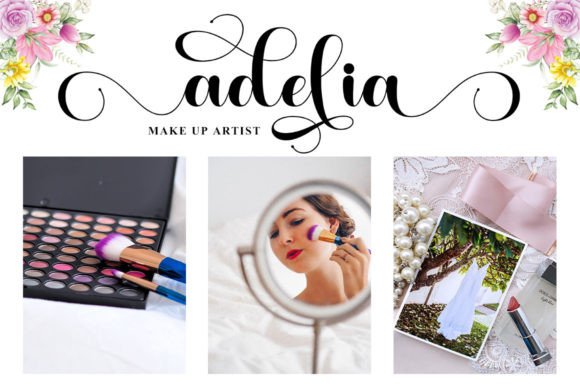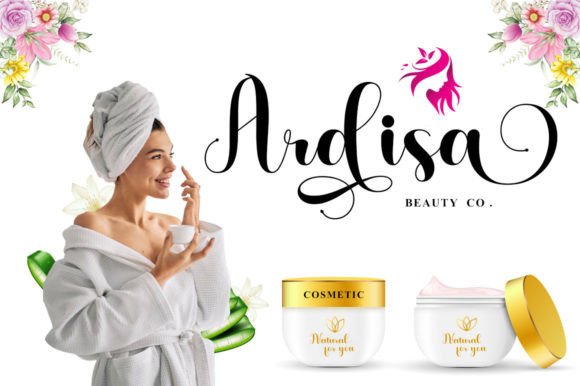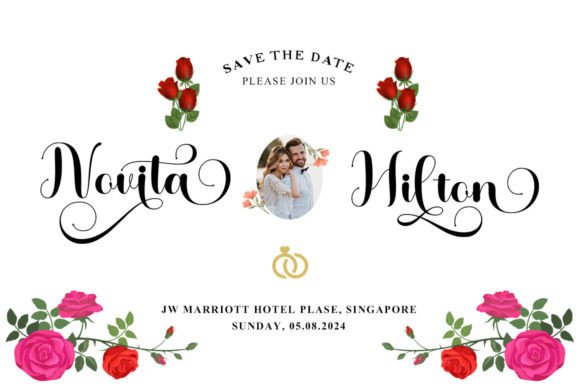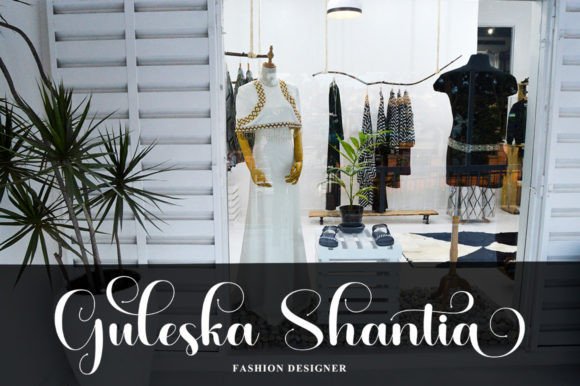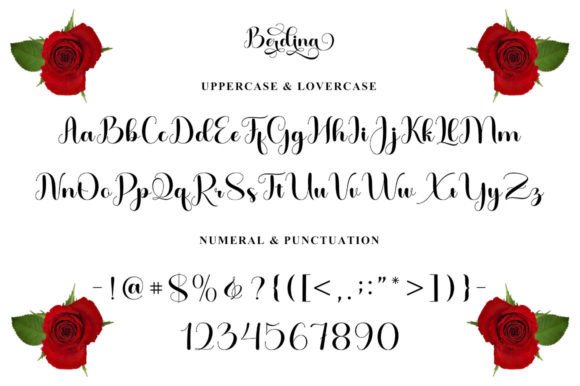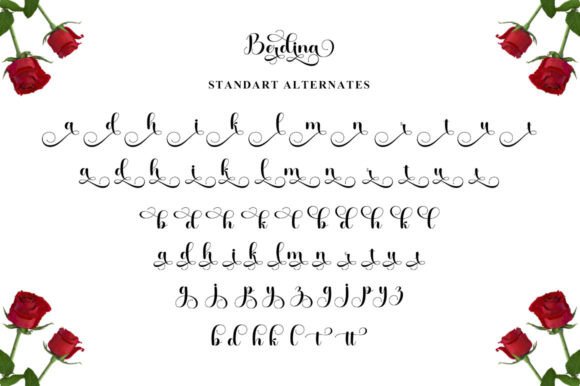
Berdina Font: The Elegant and Charming Choice for Designers and Crafters
Are you looking for a font that exudes elegance and charm? Look no further than Berdina Font. This beautiful handwritten font is perfect for adding a touch of sophistication to any design project. In this article, we’ll explore the features and benefits of Berdina Font, and why it’s a must-have for designers and crafters.
The Charm of Berdina Font
Berdina Font is a stunning script font that feels equally charming and elegant. Its beautiful, flowing lines and delicate curves make it perfect for a variety of design projects, from wedding invitations and thank you cards to quotes, greeting cards, logos, and business cards. Whether you’re looking to add a touch of whimsy or create a more formal design, Berdina Font is the perfect choice.
Versatility of Berdina Font
One of the best things about Berdina Font is its versatility. It can be used for a wide range of design projects, including:
• Wedding invitations and thank you cards
• Quotes and typography art
• Greeting cards and postcards
• Logos and branding
• Business cards and stationery
• Crafting and DIY projects
Wherever you need to add a touch of elegance and charm, Berdina Font is the perfect choice.
PUA Encoding: What it Means for Designers
Berdina Font is PUA (Private Use Area) encoded, which means that it contains a large number of glyphs and ligatures that can be accessed easily. PUA encoding allows designers to access these extra characters using a keyboard shortcut or through software such as Adobe Illustrator or Photoshop.
This means that designers can create beautiful, intricate designs with Berdina Font, using a wide range of swashes, flourishes, and other decorative elements. Whether you’re creating a logo, a wedding invitation, or a typography art piece, PUA encoding gives you the flexibility and creative freedom to produce stunning designs.
Why Designers and Crafters Love Berdina Font
So why do designers and crafters love Berdina Font? Here are just a few reasons:
• Elegance and charm: Berdina Font adds a touch of sophistication and elegance to any design project.
• Versatility: Berdina Font can be used for a wide range of design projects, from wedding invitations to logos and business cards.
• PUA encoding: Berdina Font’s PUA encoding makes it easy to access a wide range of glyphs and ligatures, giving designers the creative freedom to produce stunning designs.
In conclusion, Berdina Font is a beautiful and elegant script font that’s perfect for designers and crafters. Its versatility, PUA encoding, and ease of use make it a must-have for anyone looking to add a touch of sophistication to their design projects. Whether you’re creating wedding invitations, logos, or typography art, Berdina Font is the perfect choice. So why wait? Download Berdina Font today and start creating stunning designs!
Key Features of Berdina Font
• Beautiful handwritten script font
• Elegant and charming
• PUA encoded for easy access to glyphs and ligatures
• Versatile and can be used for a wide range of design projects